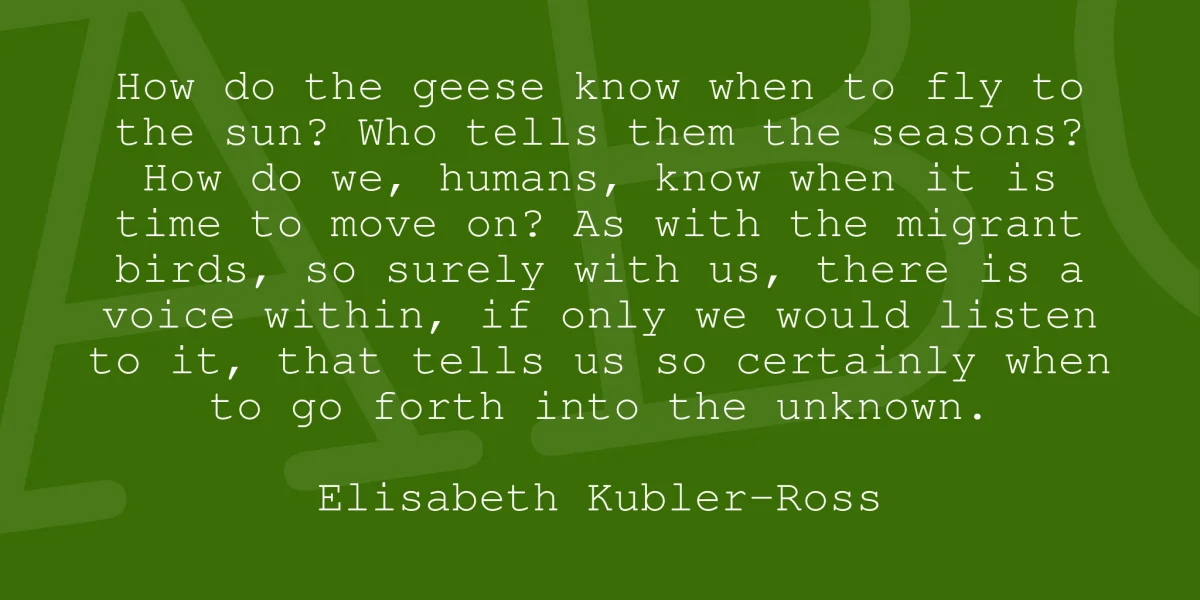
From Wikipedia: Nimbus Mono is a monospaced typeface created by URW Studio in 1984, and eventually released under the GPL and AFPL (as Type 1 font for Ghostscript) in 1996 and LPPL in 2009. It features Normal, Bold, Italic, and Bold Italic weights, and is one of several freely licensed fonts offered by URW++. Although the characters are not exactly the same, Nimbus Mono has metrics that are very similar to Courier and Courier New.
It is one of the Ghostscript fonts, free alternatives to 35 basic PostScript fonts (which include Courier). It is a standard typeface in many Linux distributions.